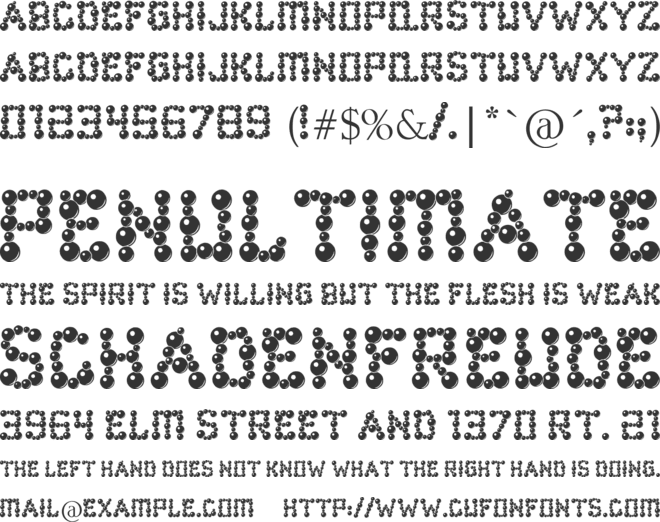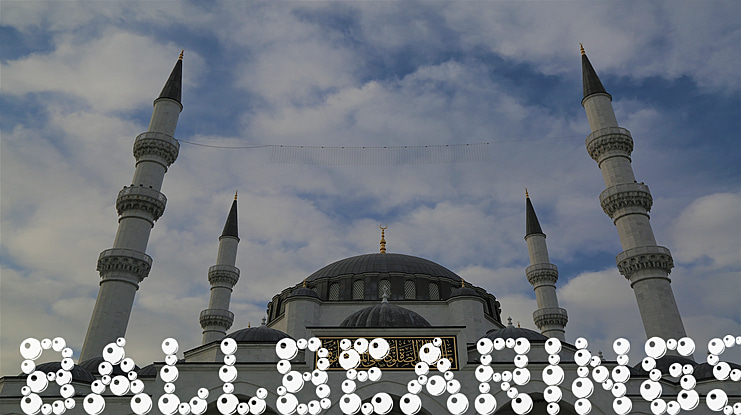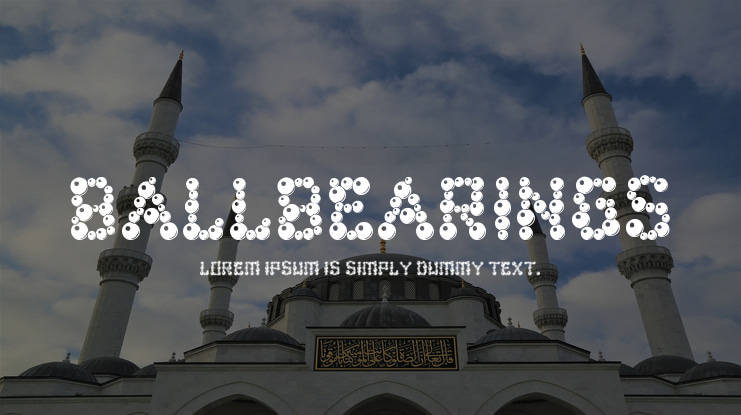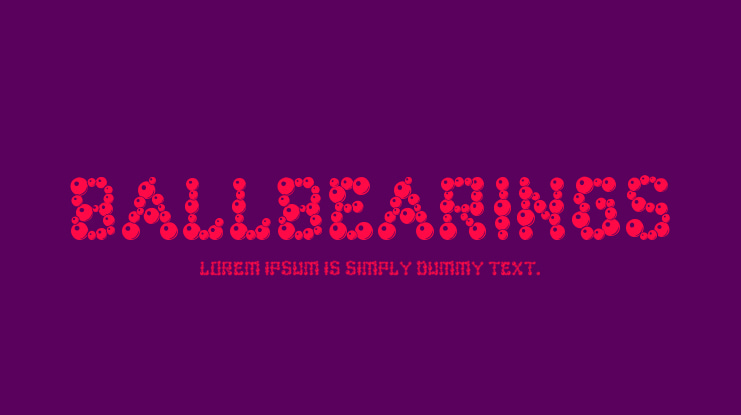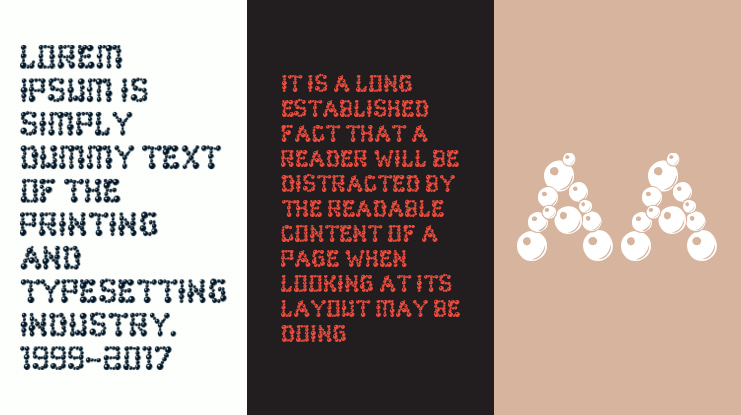
ballbearings Font Family
Ball Bearings is a variant of Bear Balling, with each ball a discrete form as opposed to all flowing together in an amalgamated shape.